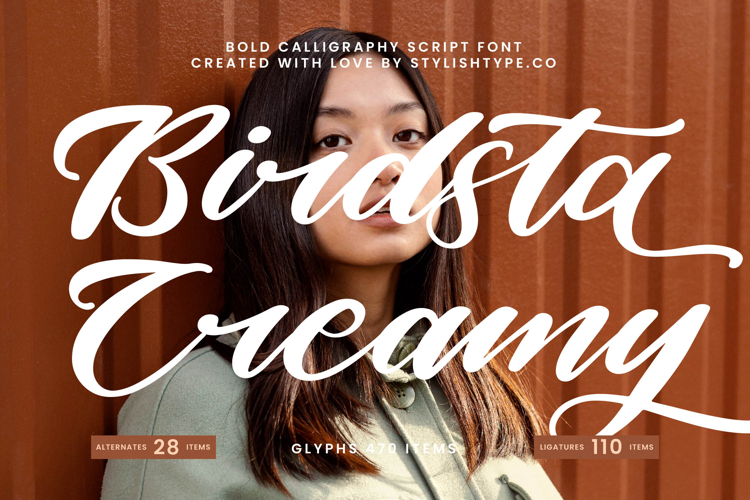
Birdsta Creamy - Bold Calligraphy Script Font
Elevate your design projects with the exquisite charm of Font Birdsta Creamy - Bold Calligraphy Script Font Script. This premium, distinctive script font embodies a perfect blend of modern elegance and authentic handcrafted artistry. Its bold, flowing strokes and smooth, inviting curves create an immediate visual impact, infusing every word with a sense of sophistication and approachability. Ideal for designers seeking to make a truly memorable statement, this typeface effortlessly conveys a luxurious and touch.
Discover unparalleled design flexibility with the extensive character set of Font Birdsta Creamy - Bold Calligraphy Script Font Script. Boasting an impressive collection of alternates, glyphs, and ligatures, it empowers you to craft truly bespoke typography. These rich OpenType features allow for seamless customization, ensuring each design feels unique and tailored, transforming standard text into a visually captivating experience. The bold weight ensures a high-contrast presence, perfect for demanding visual applications.